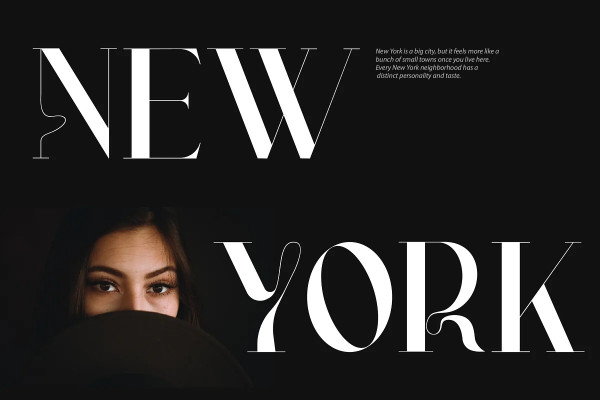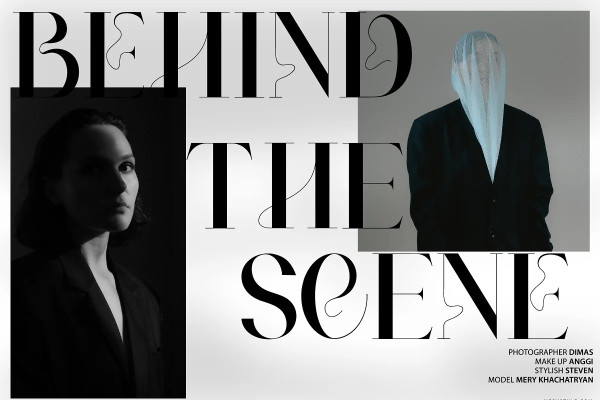
Northy Fifty Font
Northy fifty Font which has a modern looking design. In this font there are additional arches at each foot of the letter so that it looks more elegant. Northy fifty has Alternate and Ligature that you can use in both modern and contemporary designs, and are suitable for use in a variety of fashion media, posters, modeling magazines, typography, promotions and other digital media.